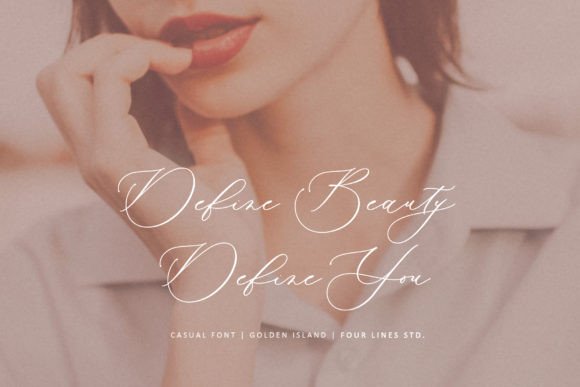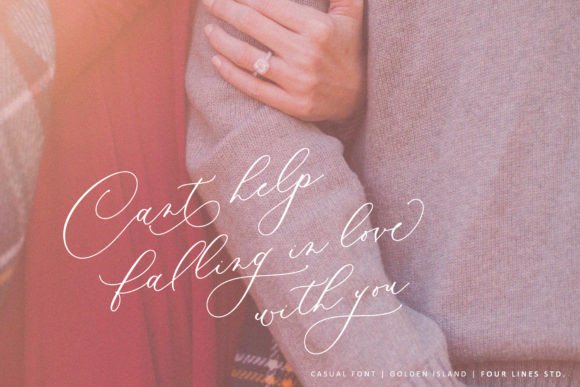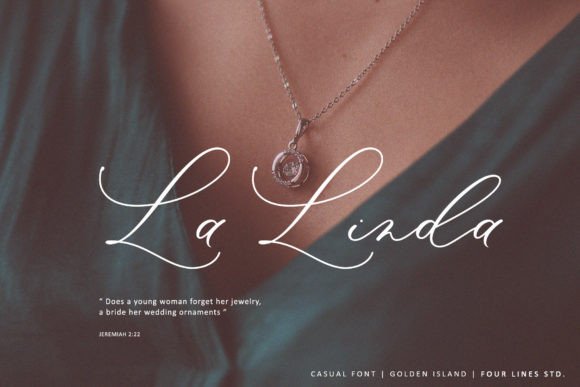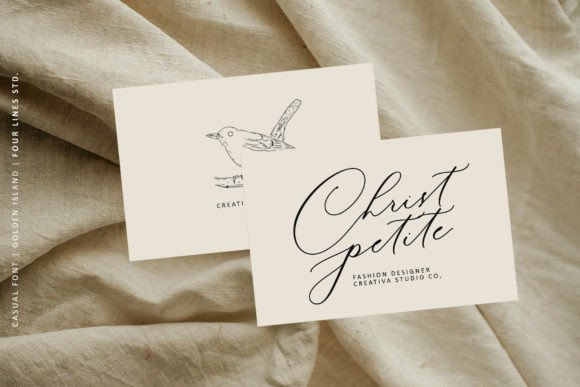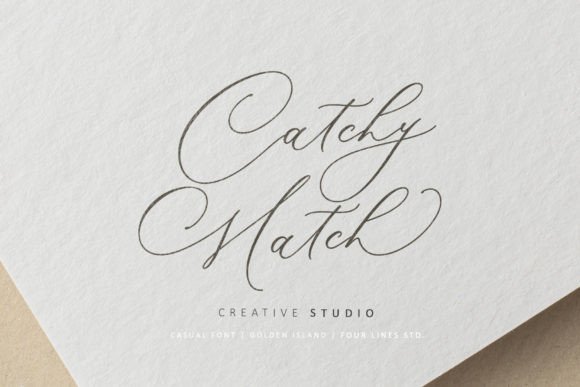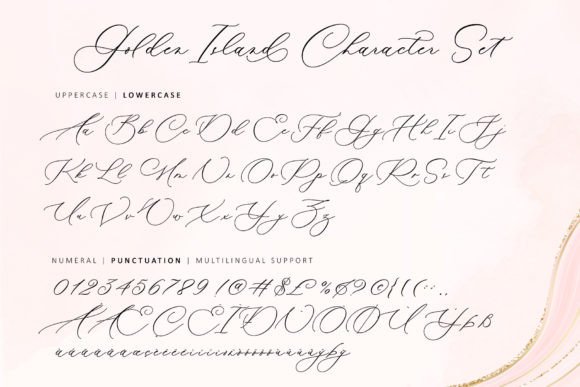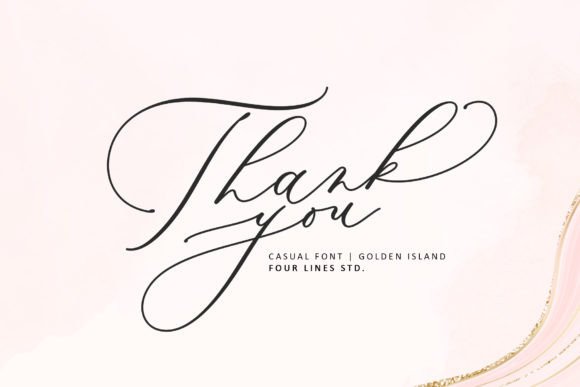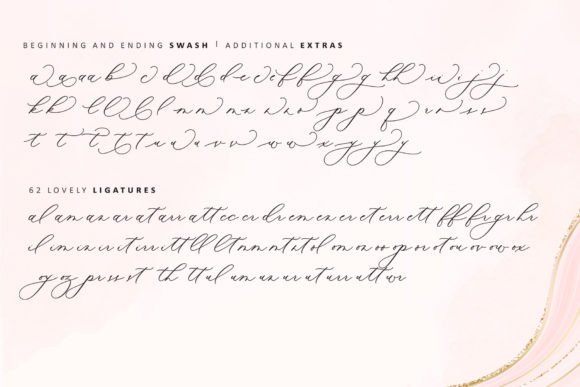
Golden Island Font
About Golden Island Font
Introducing “Golden Island,” a delicate, elegant, and flowing script font designed to bring a touch of sophistication to your creative projects. With beautiful and well-balanced characters, this font seamlessly complements a wide range of design aesthetics. Add “Golden Island” to your most imaginative ideas and witness the transformative effect it brings to your designs!
Visualize “Golden Island” gracing your designs with its delicate and flowing script, adding an air of elegance and charm. Picture it enhancing wedding invitations, greeting cards, branding materials, or any project where a graceful touch is desired. The well-balanced characters ensure that “Golden Island” blends effortlessly into various design contexts.
Whether you’re working on digital or print projects, “Golden Island” is crafted to enhance the visual appeal of your creations. Its versatility makes it suitable for a variety of applications, providing you with creative flexibility.
Explore the enchanting qualities of “Golden Island” as you incorporate it into your design toolkit. Let it be the font that infuses your projects with elegance and a flowing script, creating a visual impact that captivates and delights.